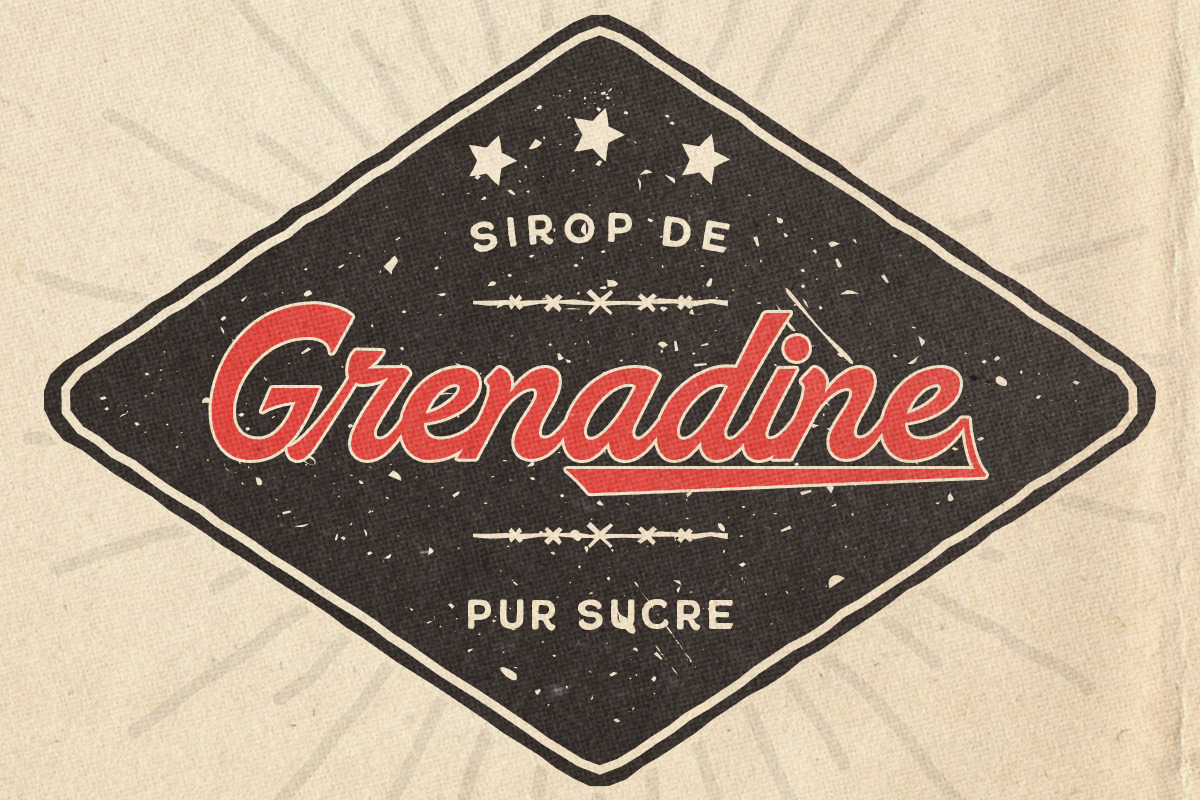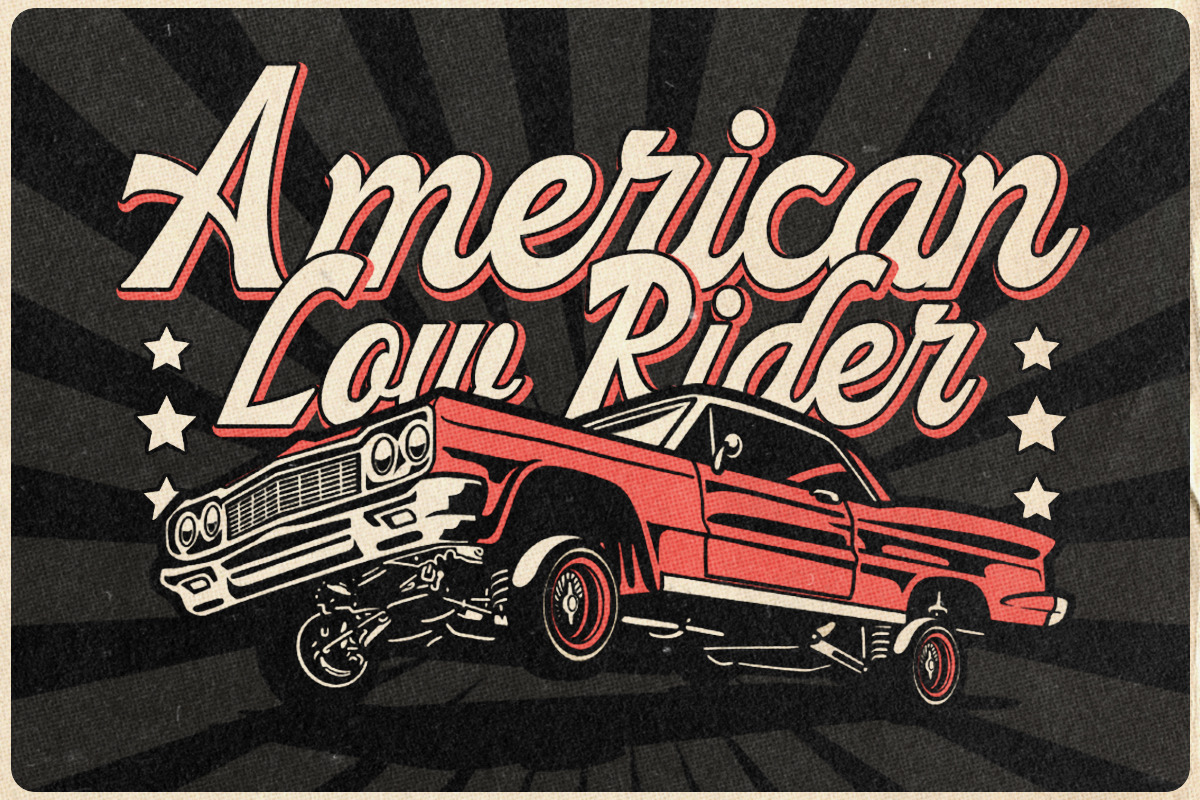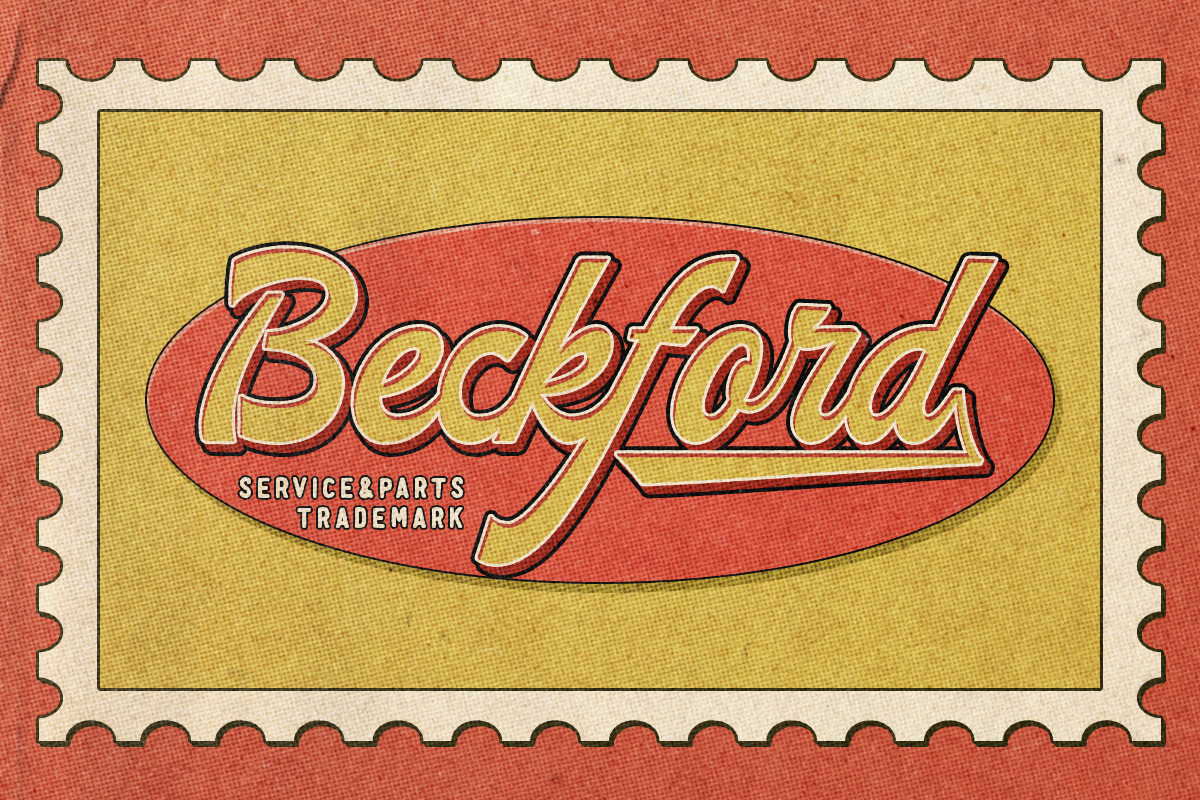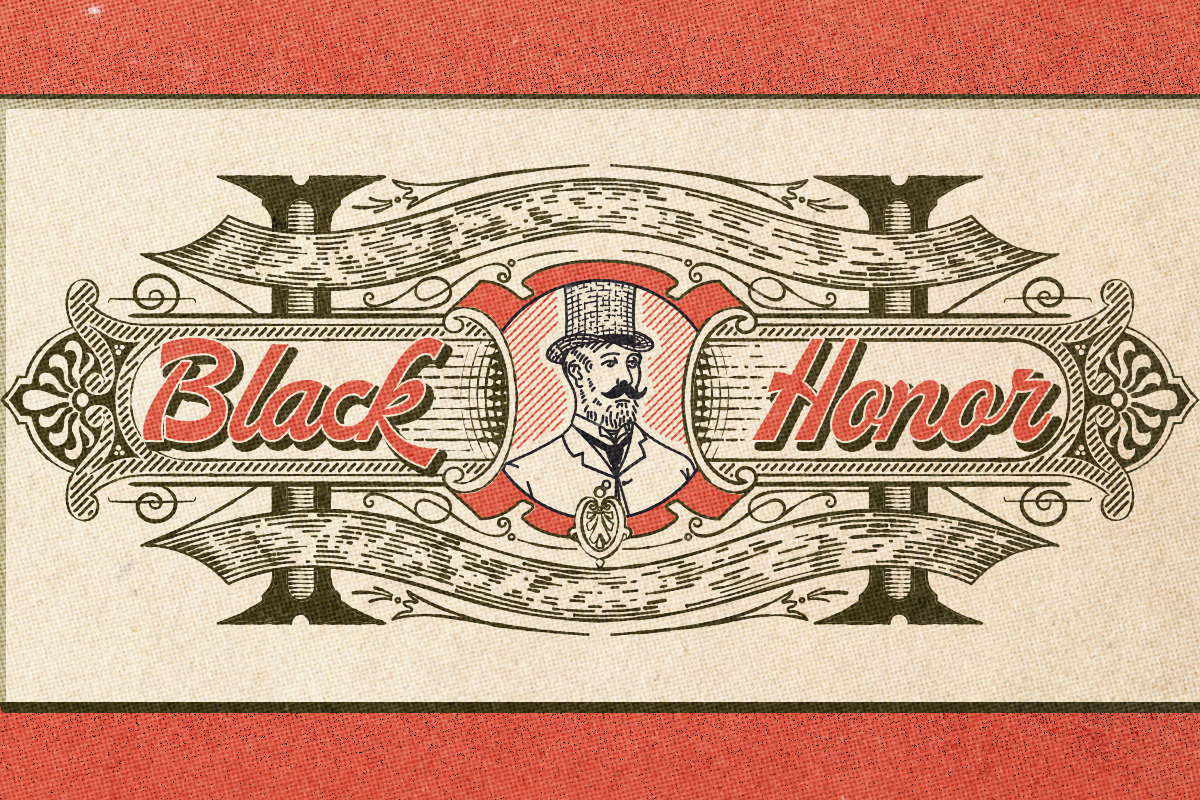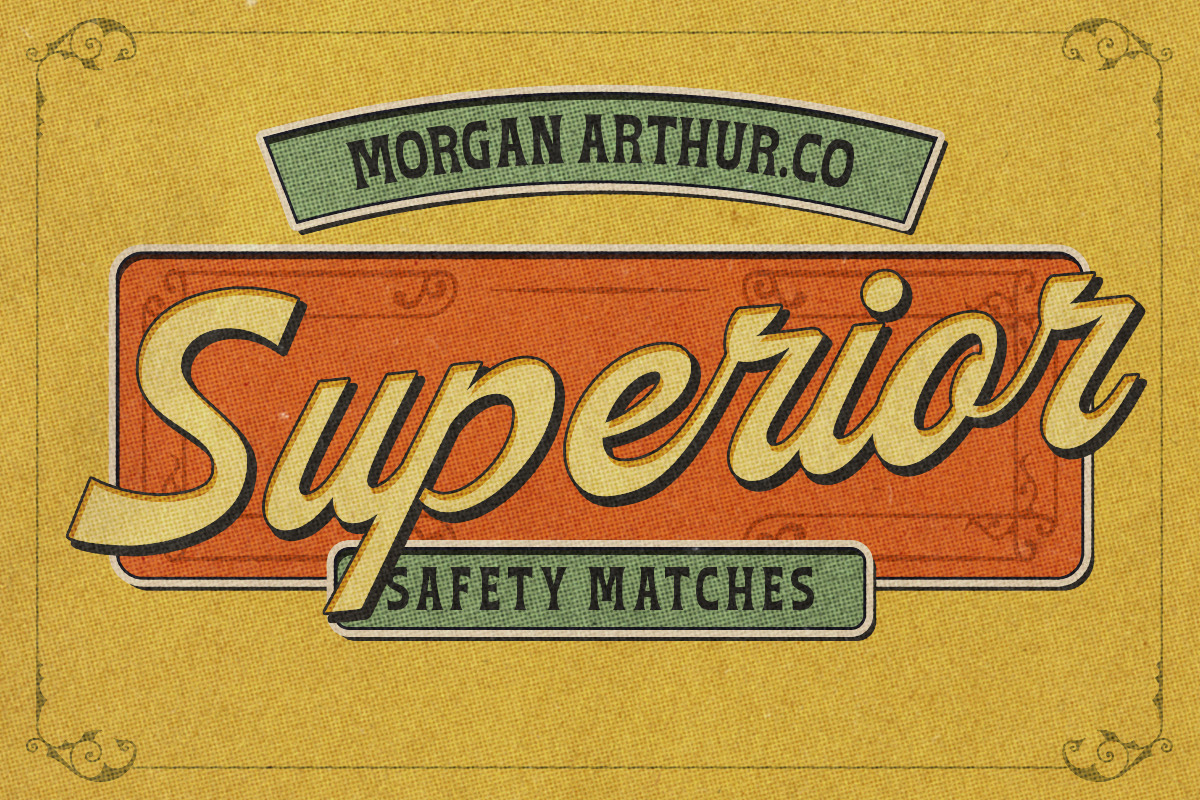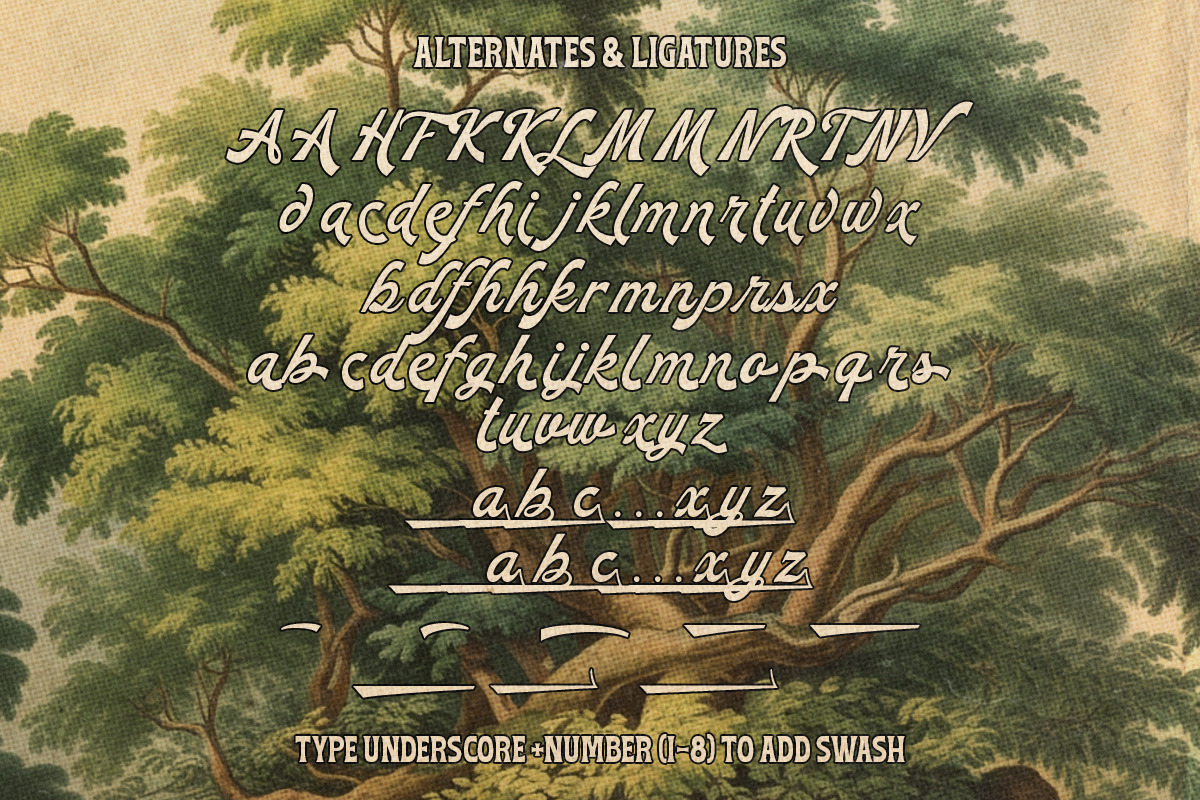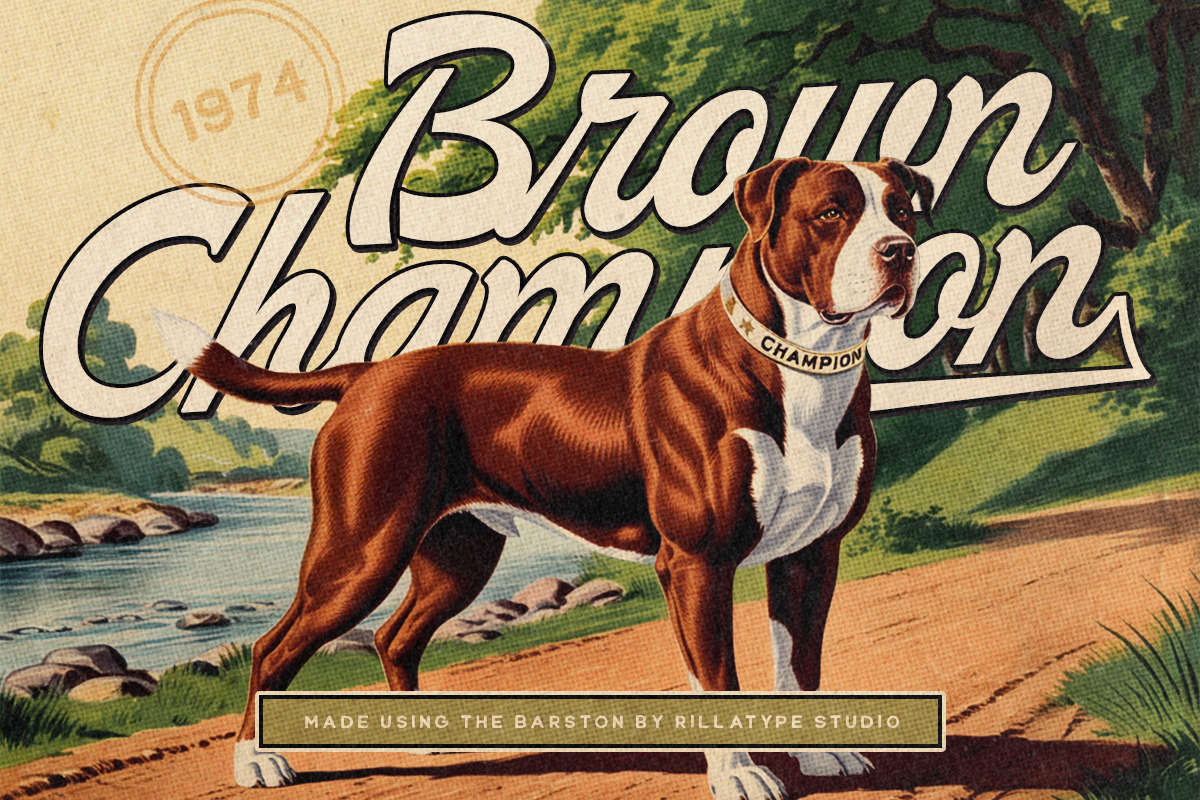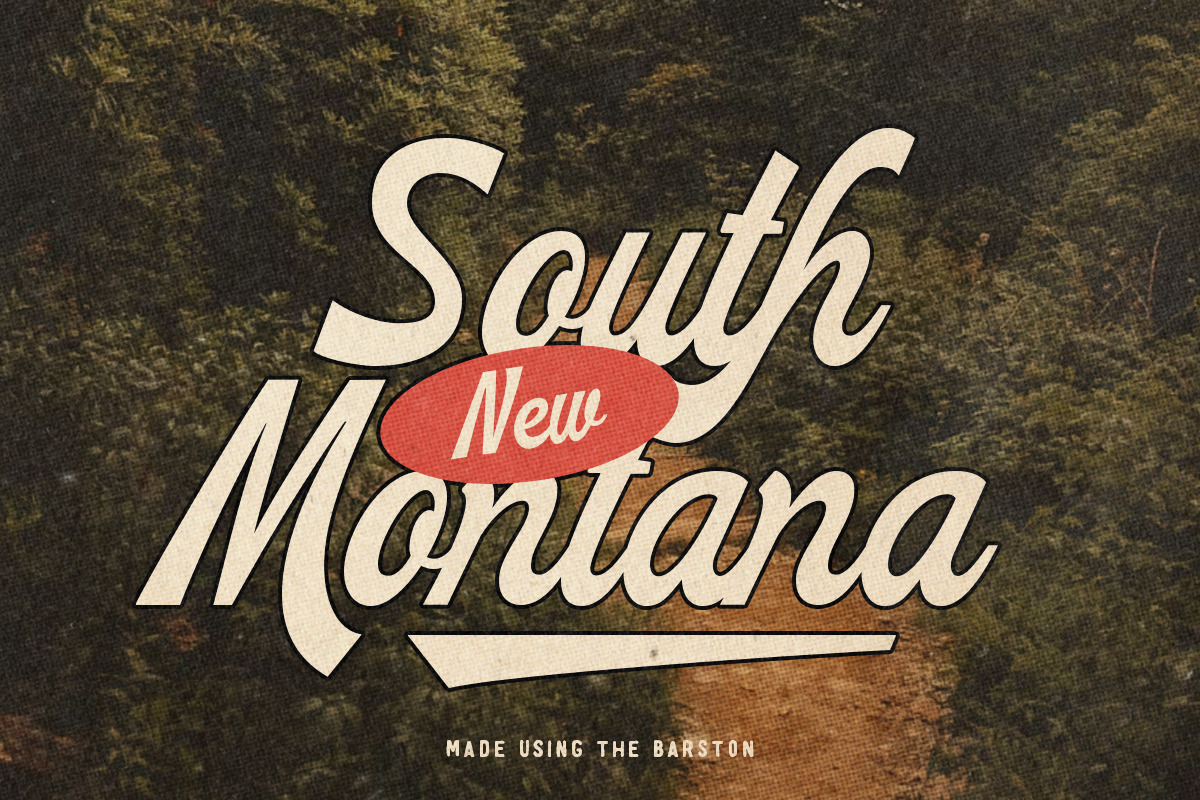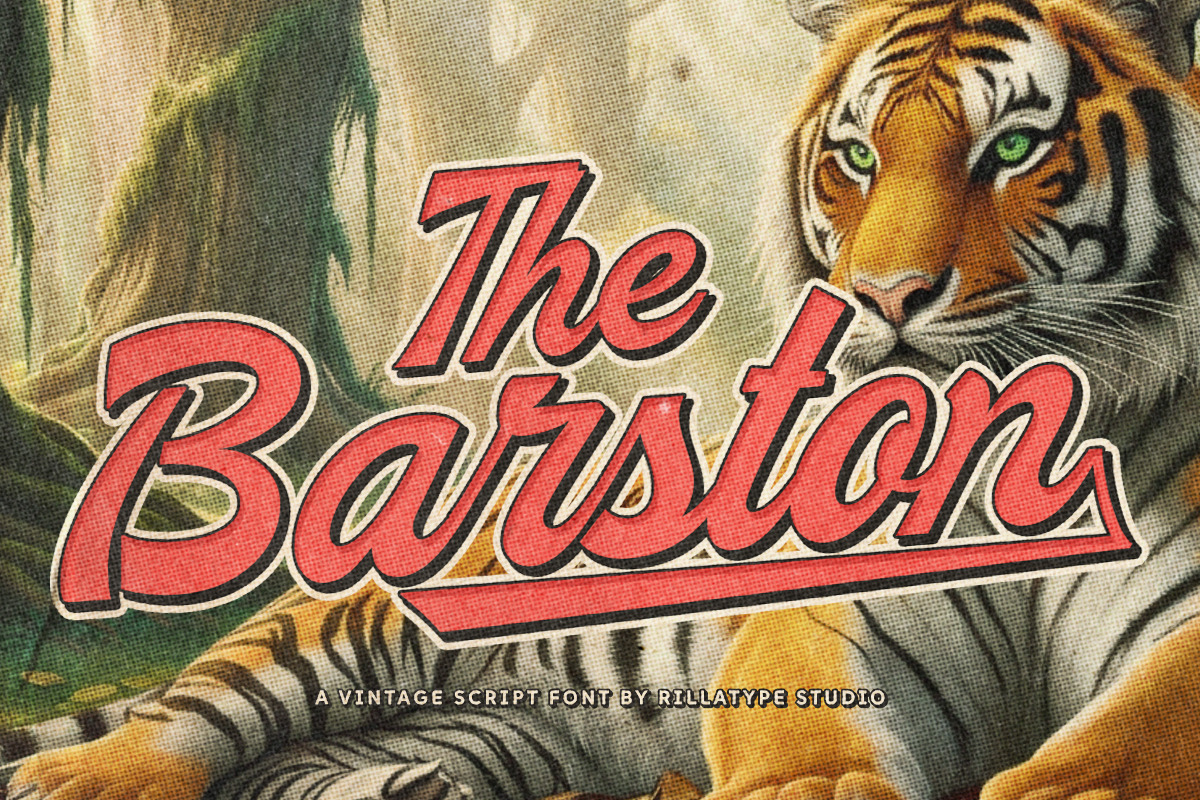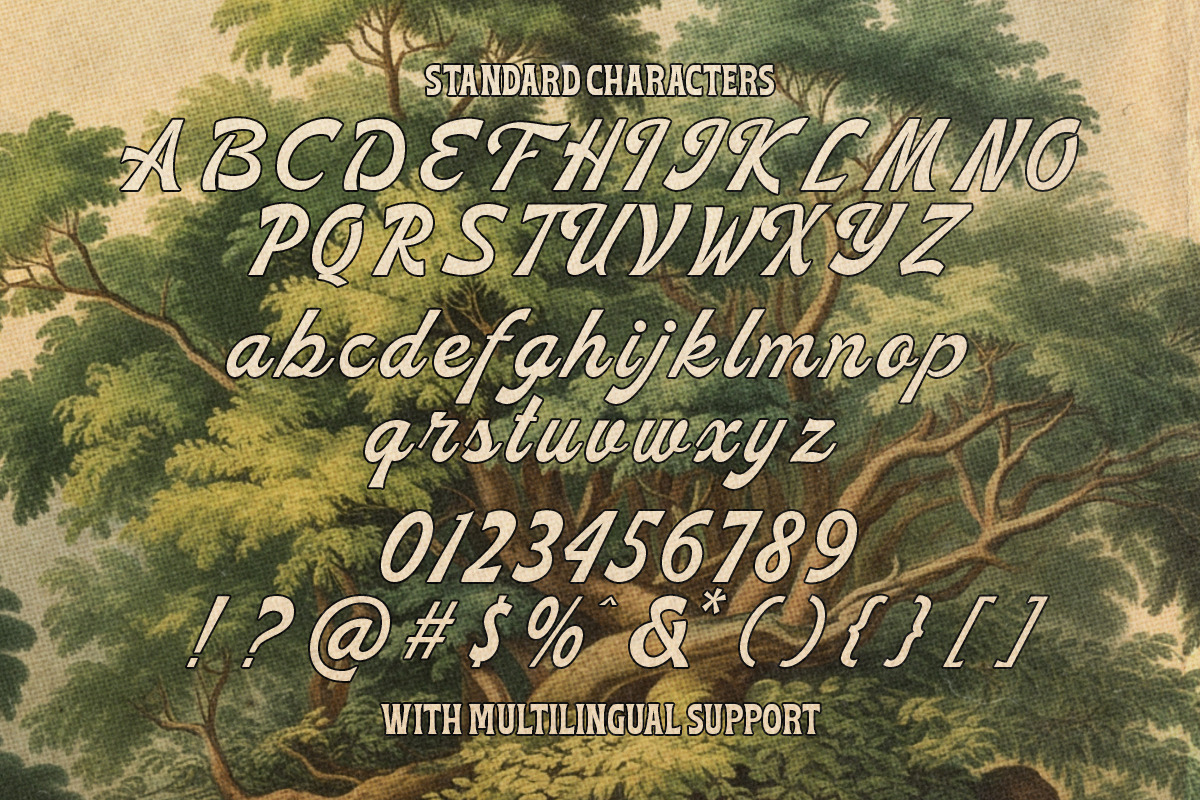
The Barston – Vintage Script Font
Introducing The Barston, a sophisticated vintage script font inspired by classic retro aesthetics. With its elegant, flowing letterforms and nostalgic charm, The Barston is the perfect choice for any project that needs a touch of old-school flair. Ideal for branding, logos, packaging, posters, and signage, this font effortlessly captures the spirit of vintage eras while remaining timeless and versatile. Whether you’re creating a retro-inspired design or adding a nostalgic vibe to your work, The Barston delivers with style and character. Add a bit of classic allure to your creations!